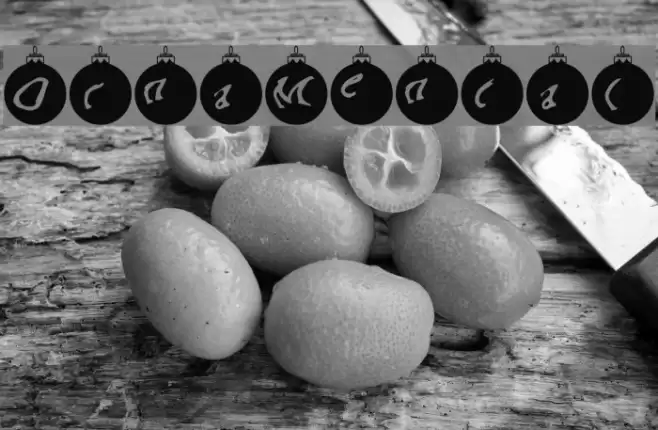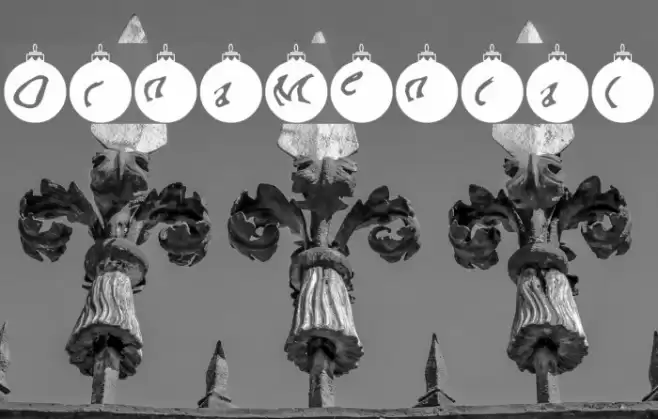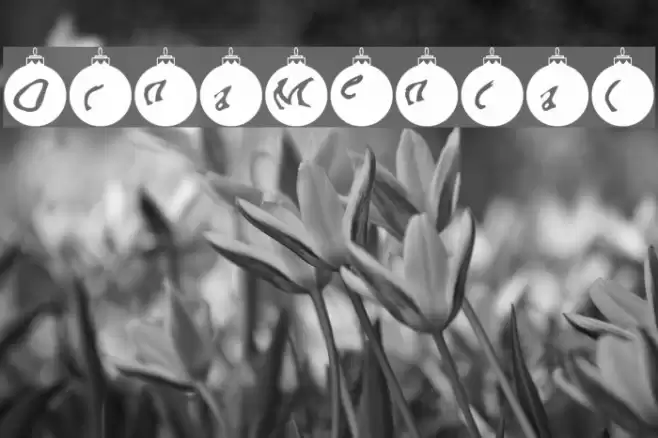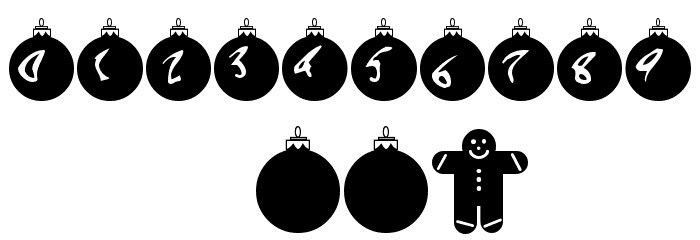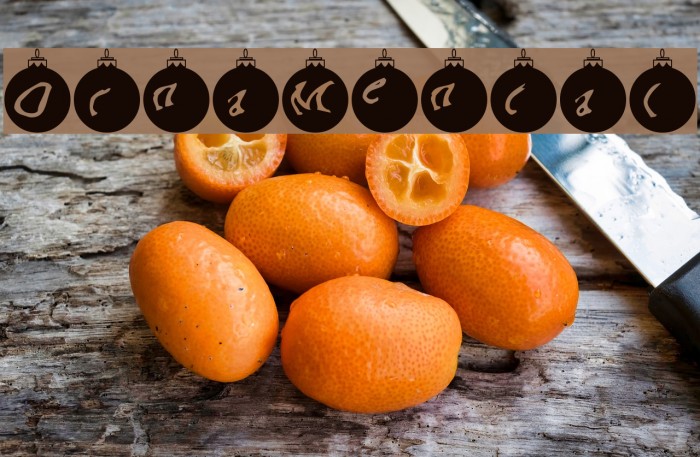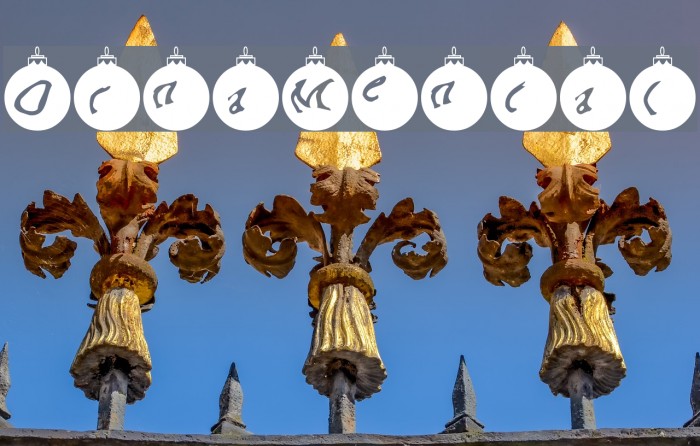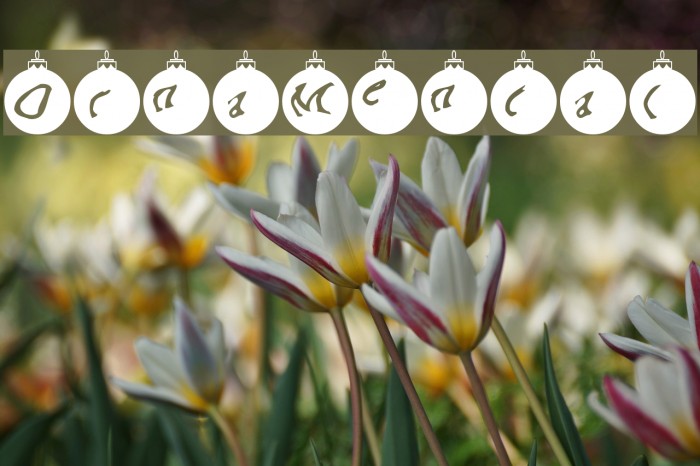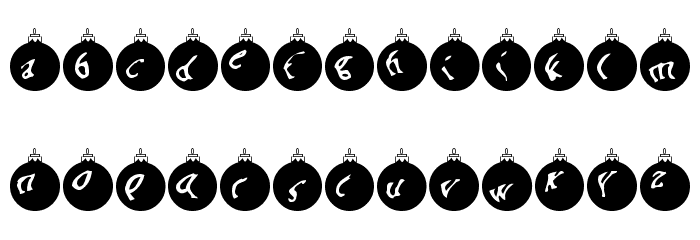
OrnaMental Font
OrnaMental Description
This font is a whimsical and festive display style, featuring characters enclosed within Christmas ornament shapes. Each letter and number is designed with a playful, handwritten script that evokes a sense of holiday cheer. The characters are bold and rounded, with a slight slant that adds a dynamic and lively feel. The overall design is decorative, making it ideal for seasonal projects. The inclusion of special characters like a gingerbread man and additional ornaments enhances its festive appeal, making it perfect for holiday-themed designs.
A festive, decorative font with characters inside Christmas ornaments, ideal for holiday themes from Decorative fonts.
- Proposed Projects: Perfect for holiday cards, festive banners, Christmas party invitations, and seasonal marketing materials.
- Use Case: Headlines, Logos, Seasonal Designs